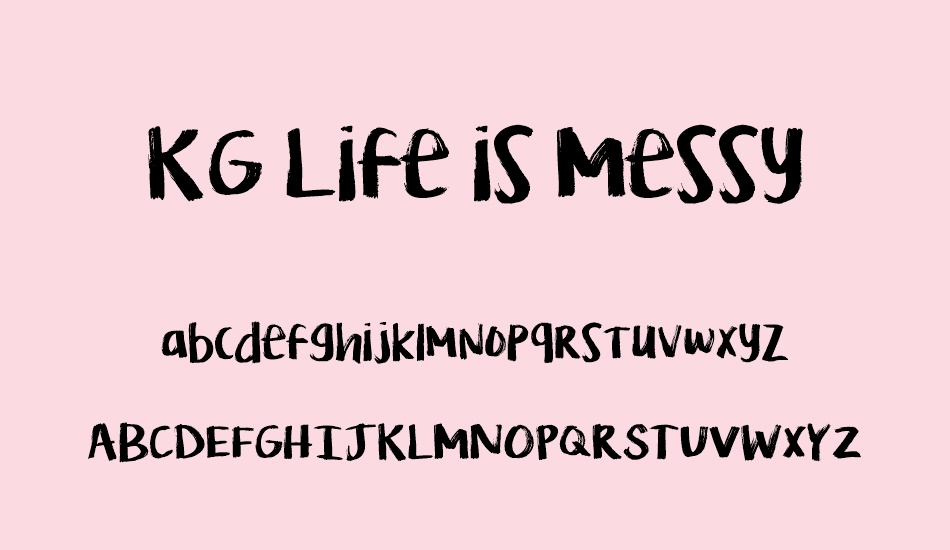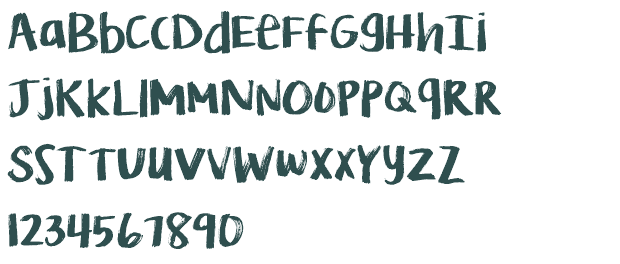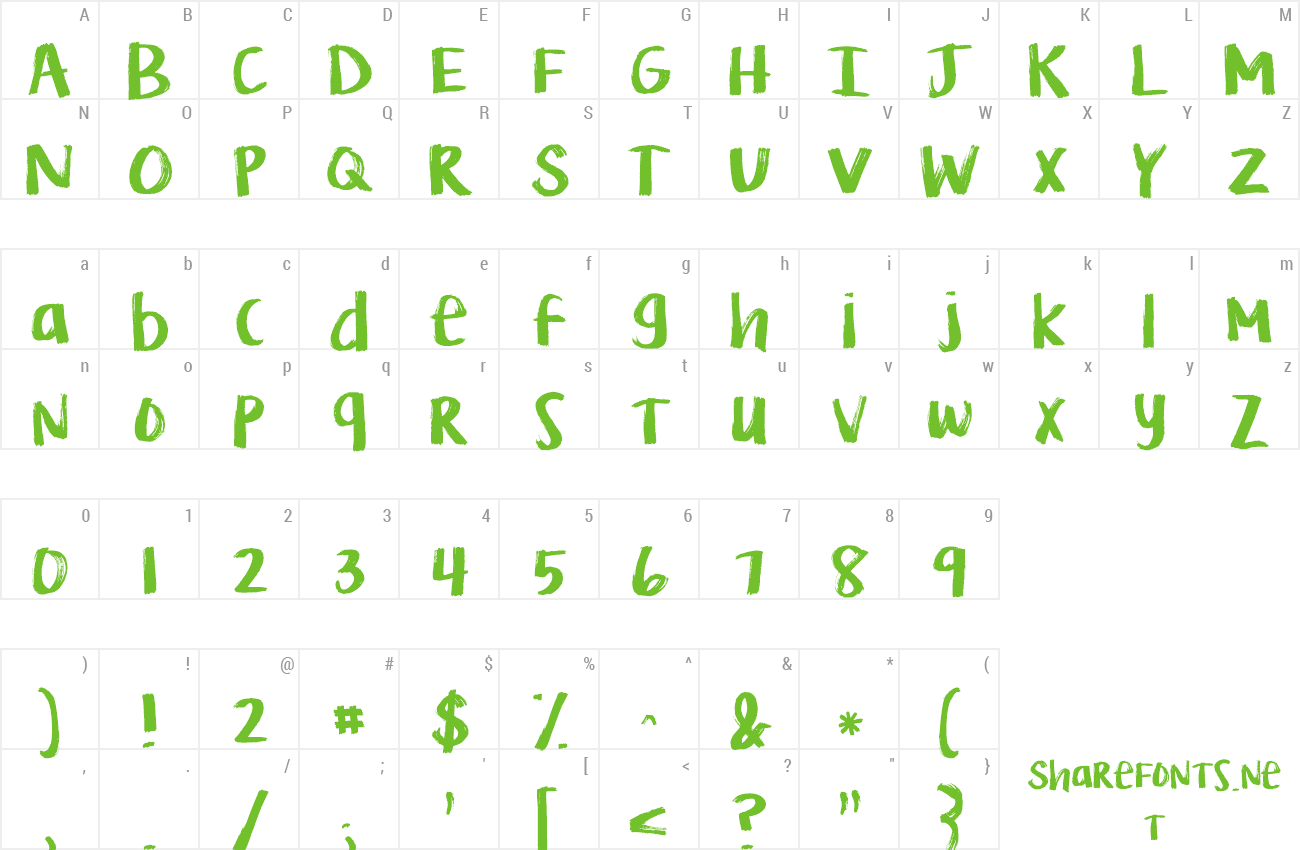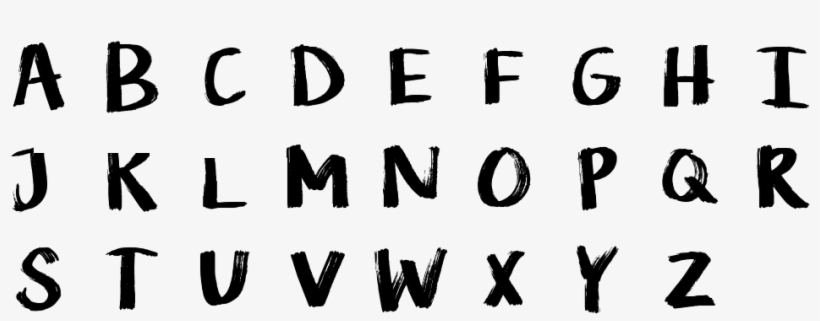
life is messy font
Kimberly geswein is a font designer that since 2006 has created 311 free fonts.
Life is messy font. From weekly spreads to mood trackers. In the words of the creator paula painmar this font was created by the handwriting of a stressed designer it s expressive bold. I printed it out originally using the ms word pdf option and my landscape pages printed out portrait and were too small. 100 png 300 dpi of 3600 px with transparent.
And because the style is casual and slightly messy it s best used as an accent font to highlight a few words. Personal use free 209 2k downloads all. Two fonts have been used for the game logo. Every font is free to download.